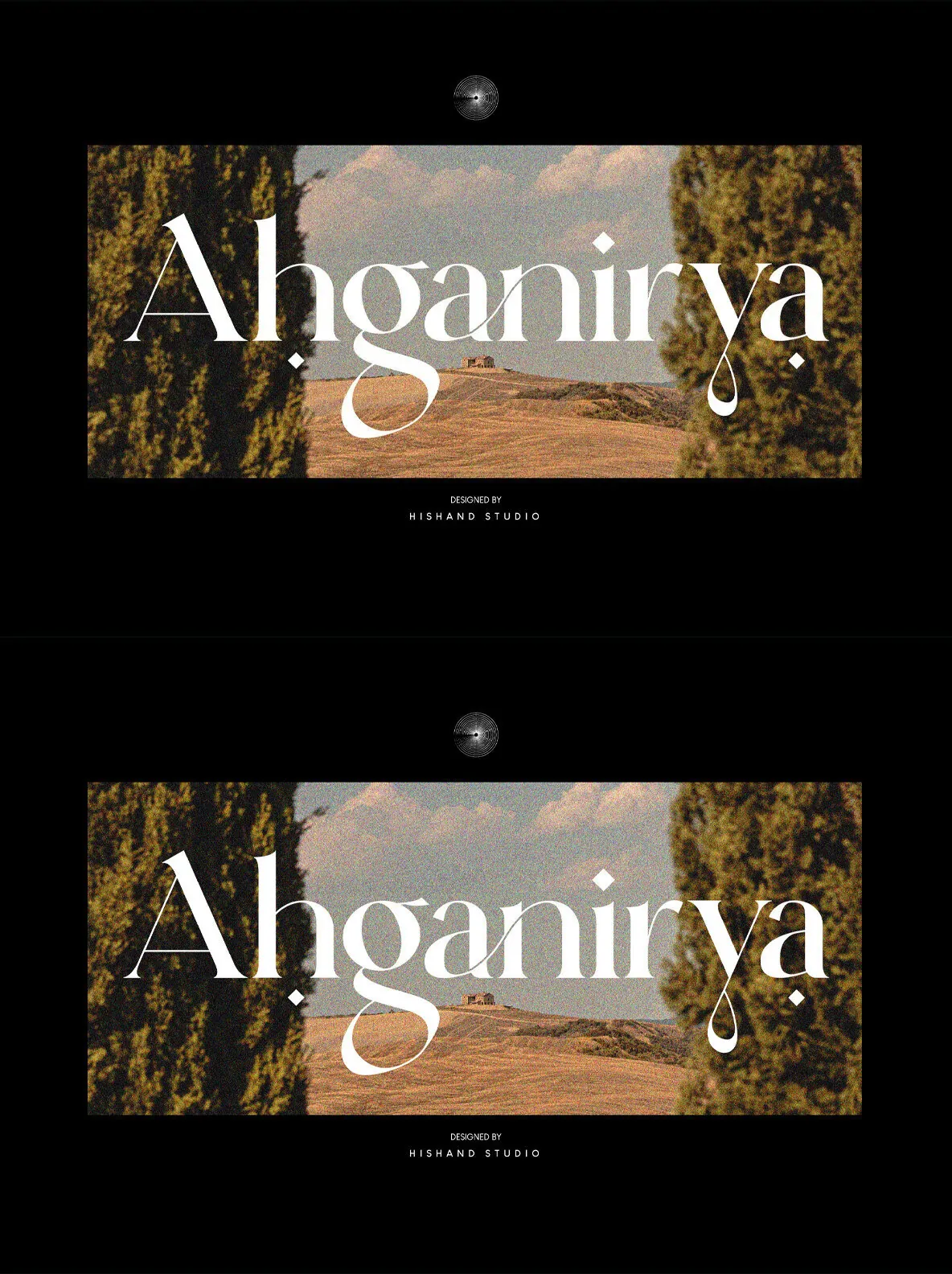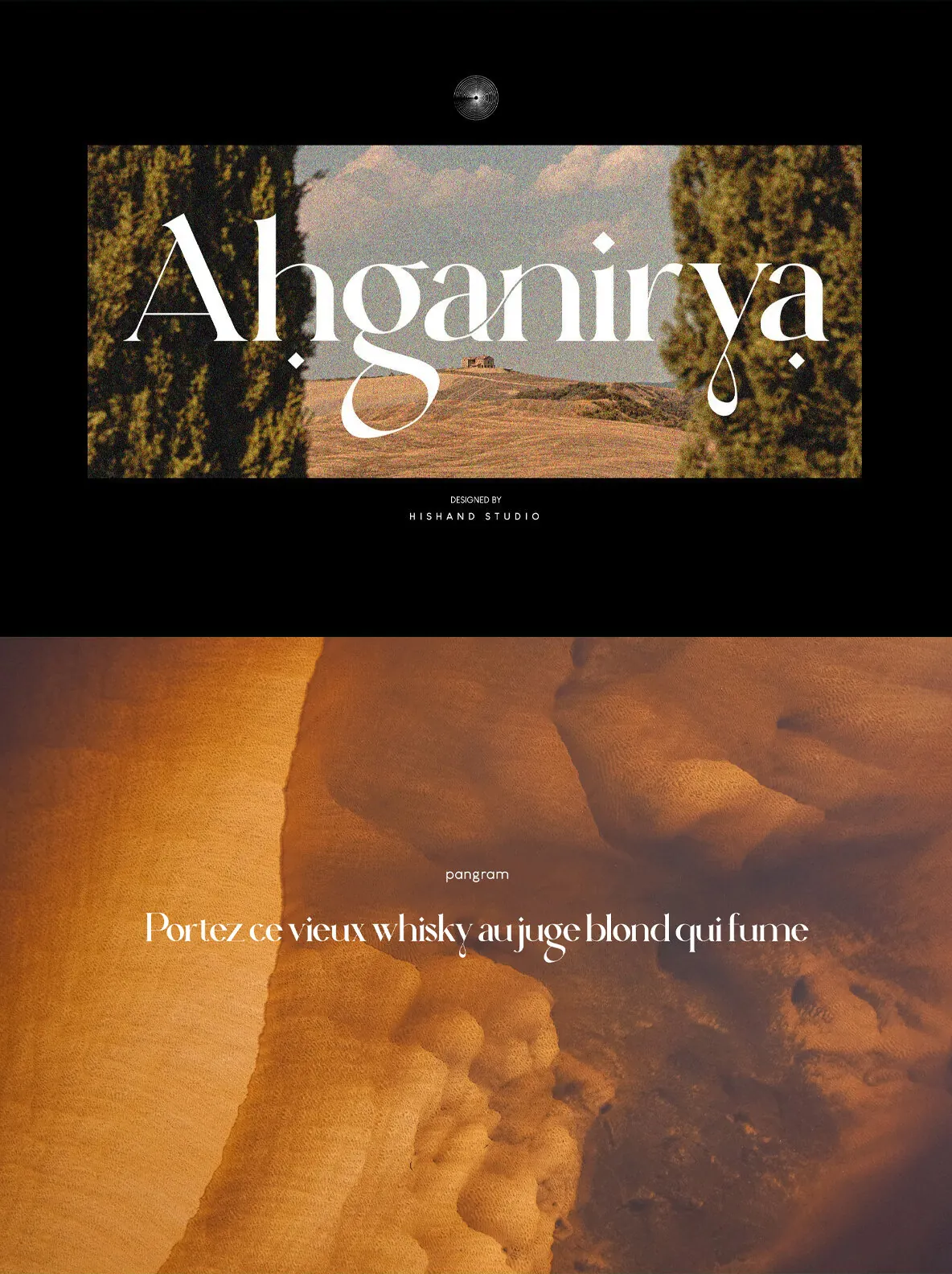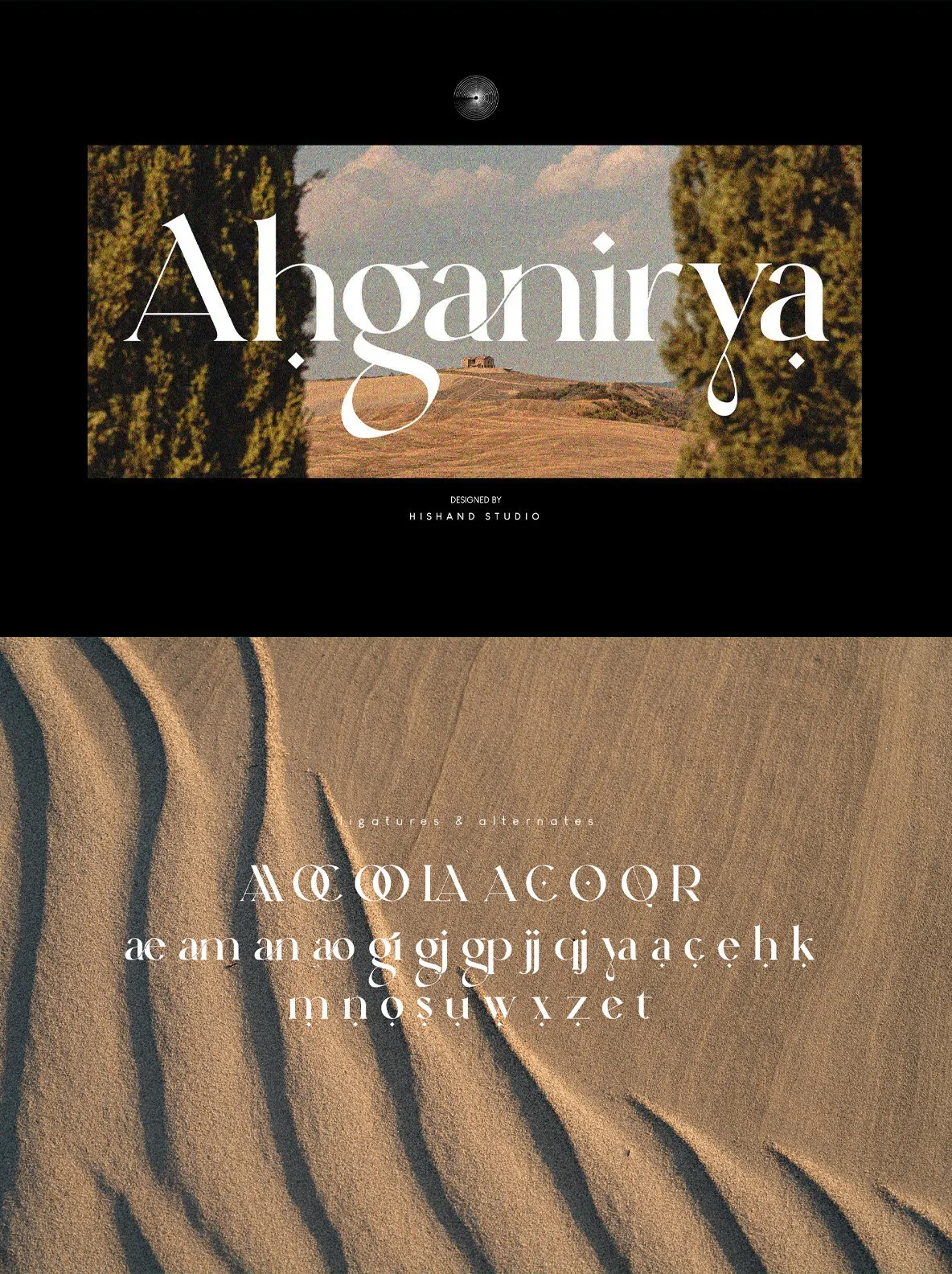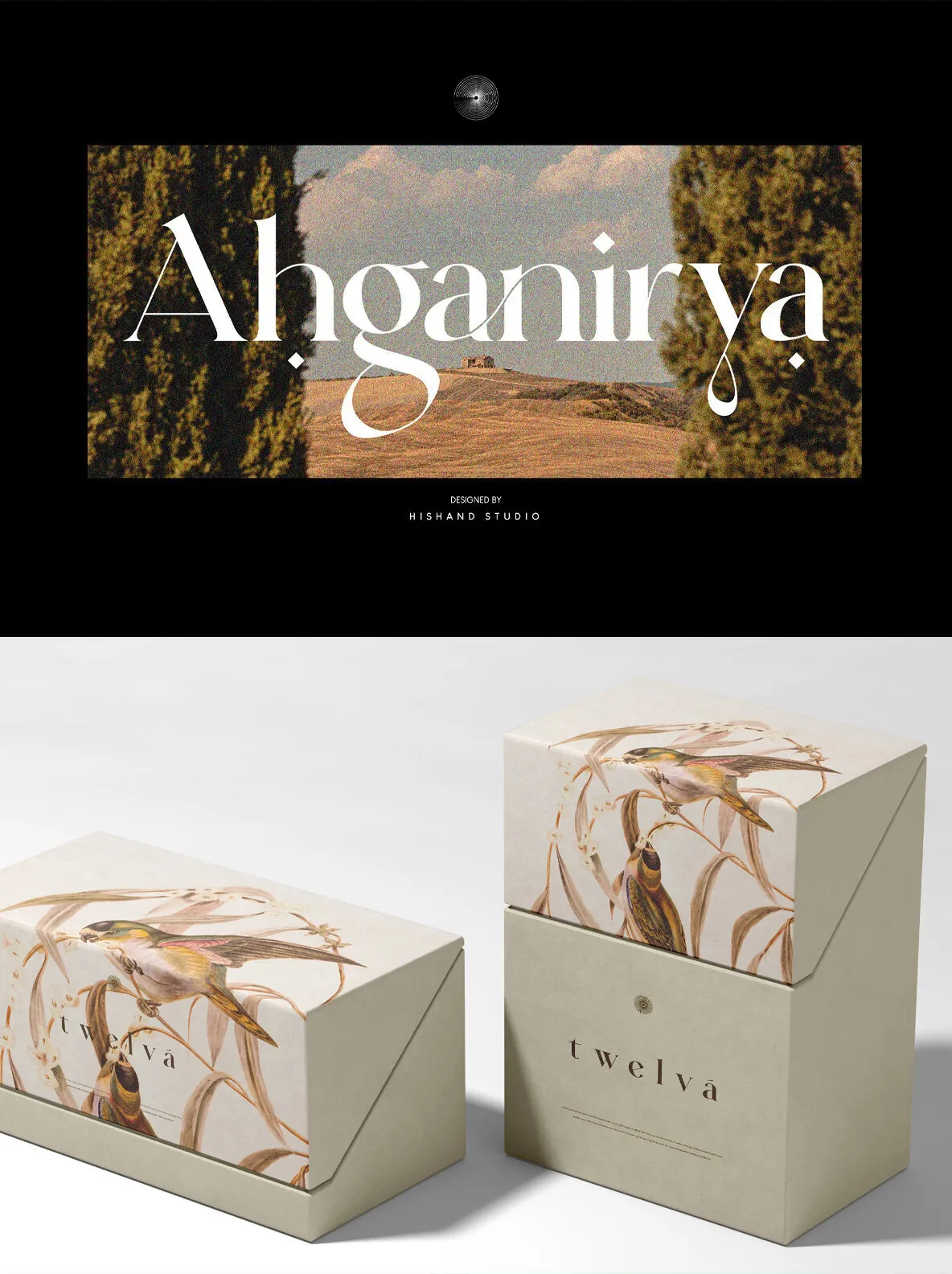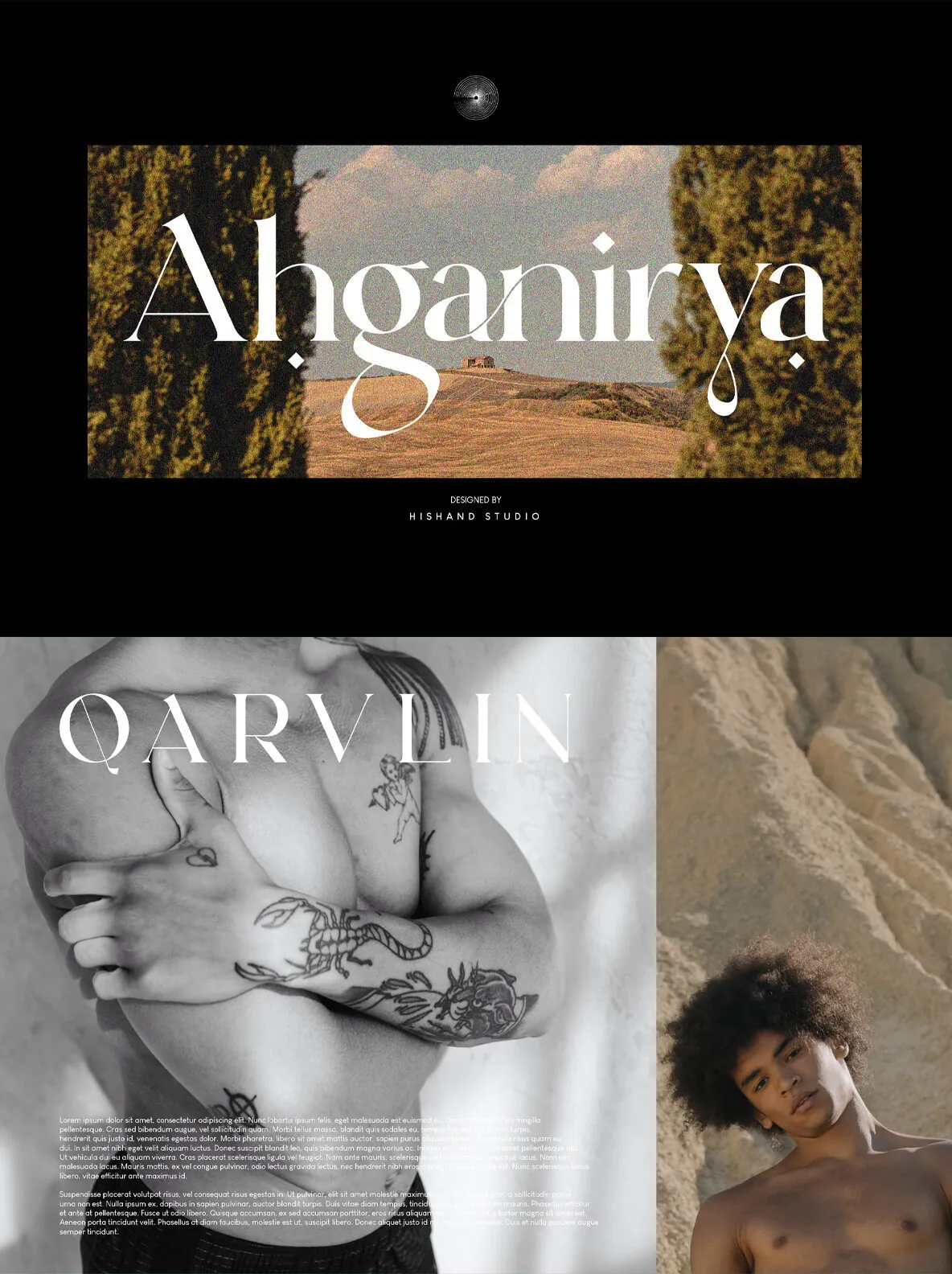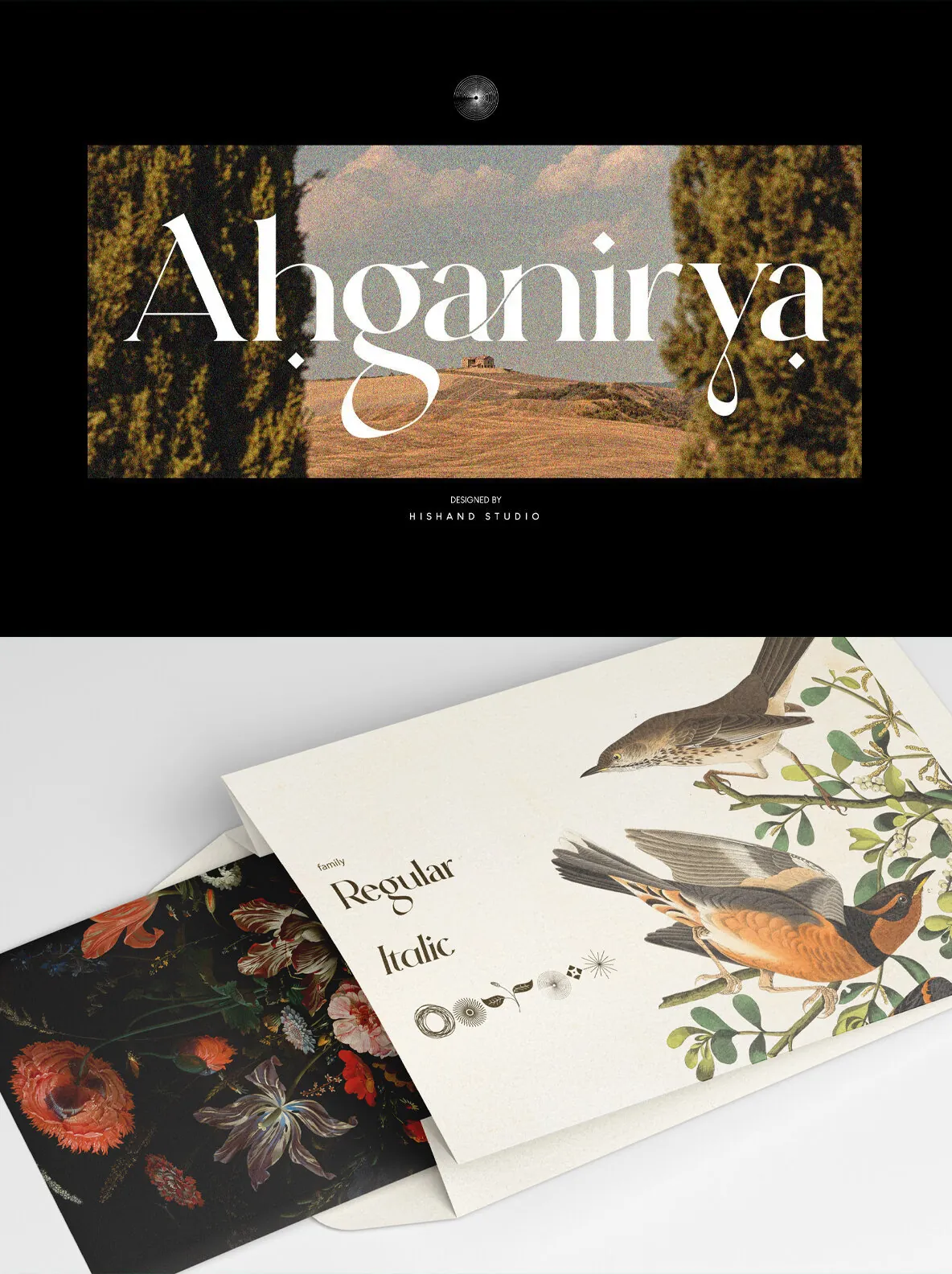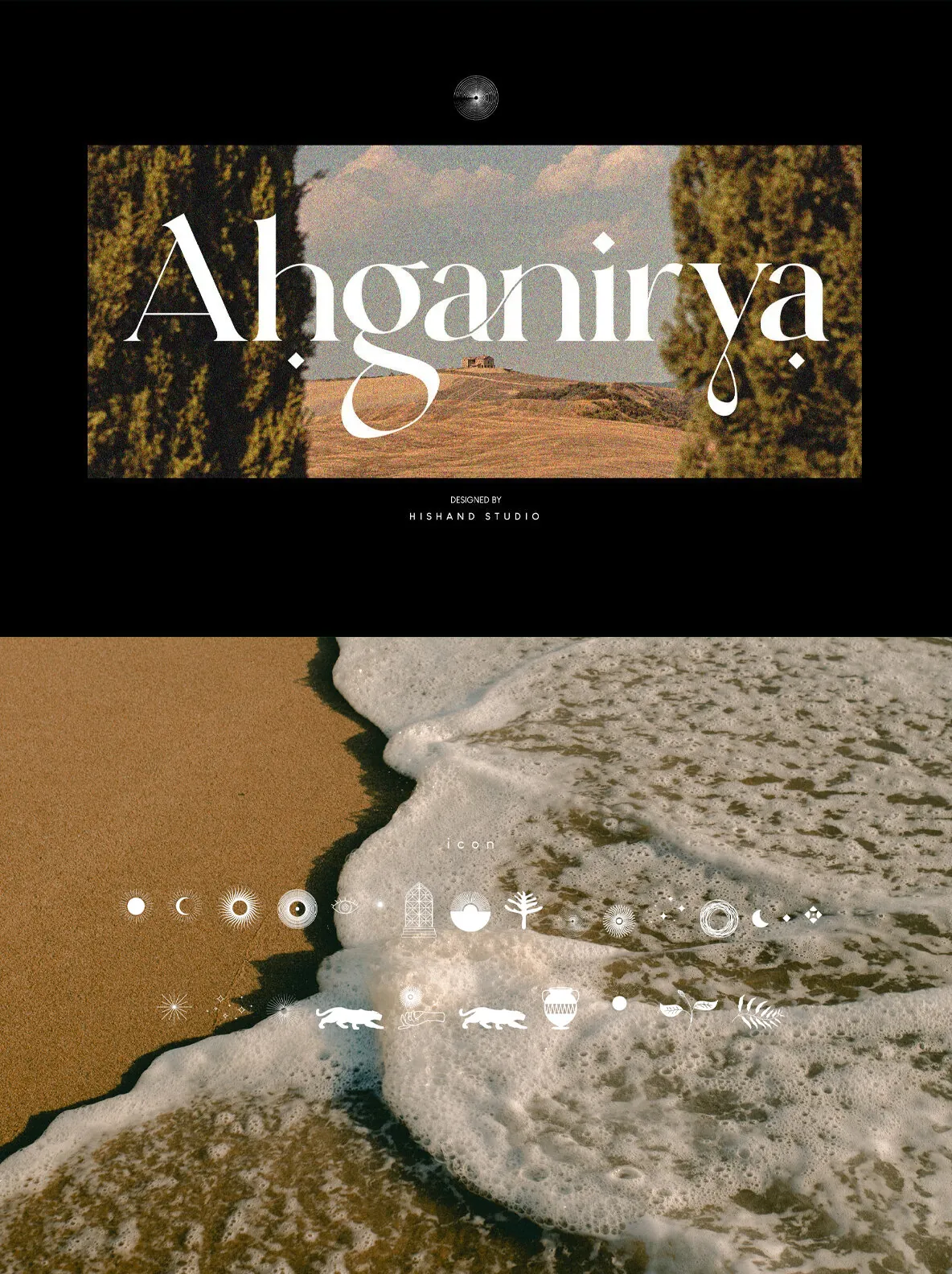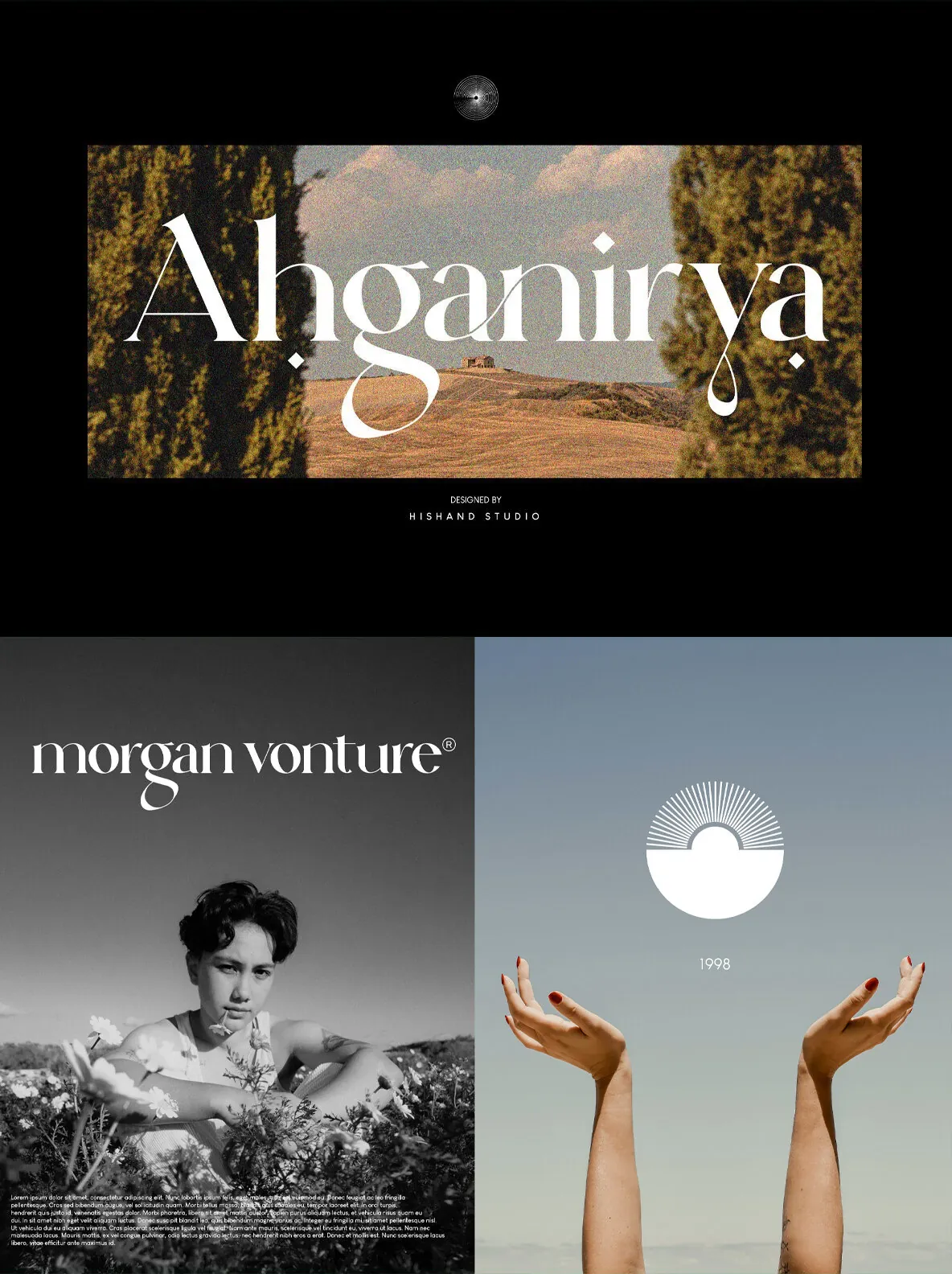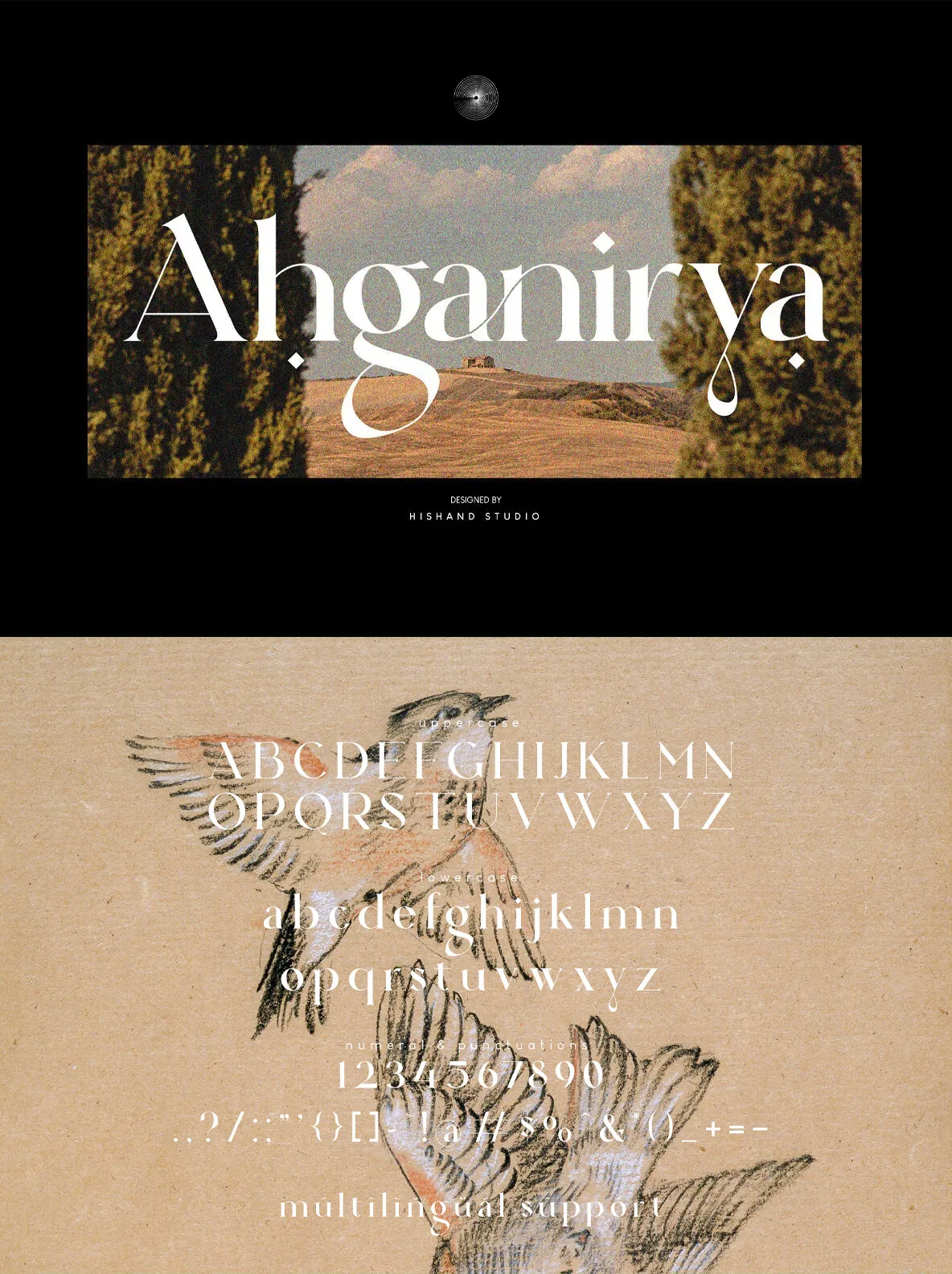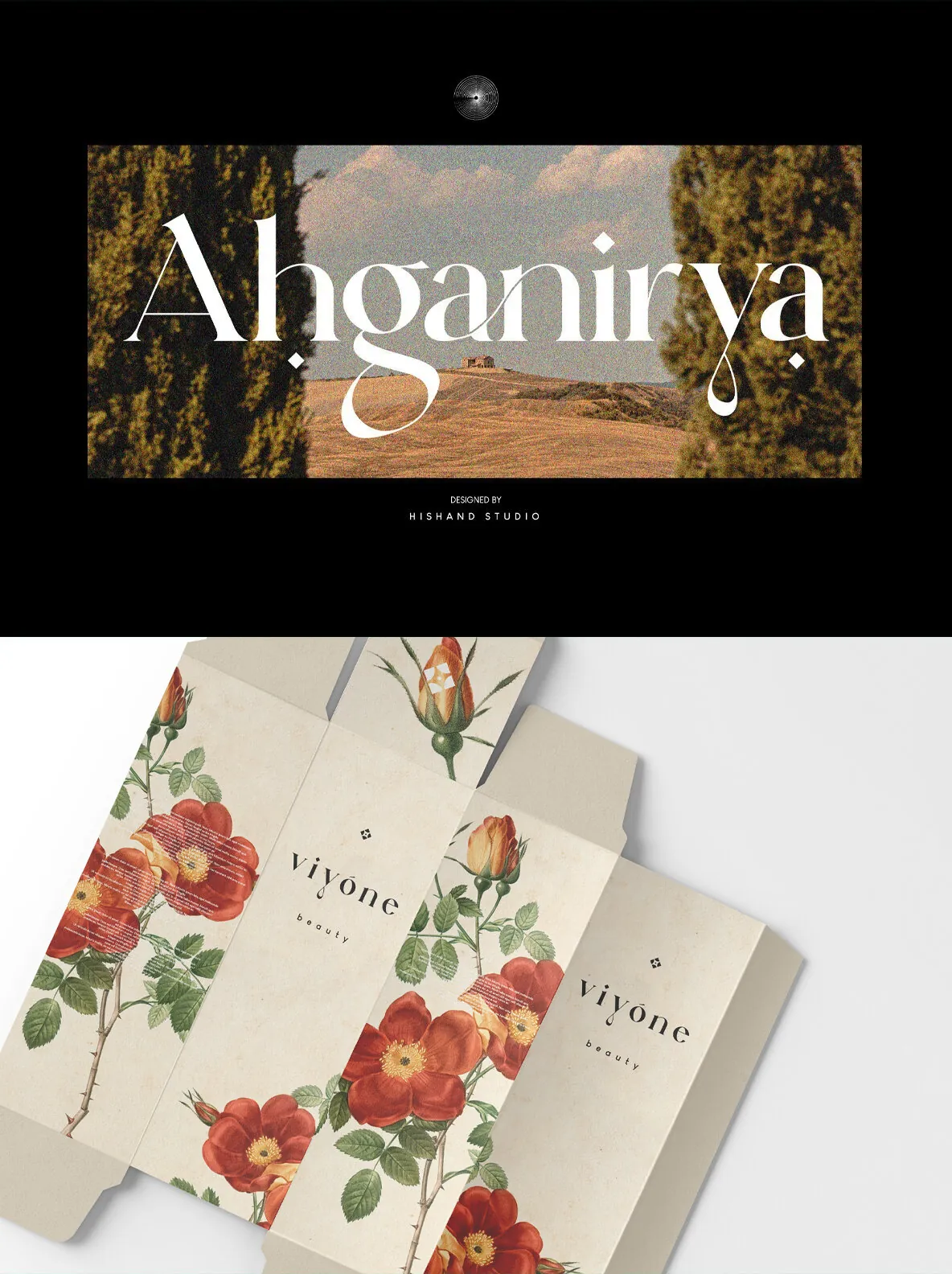
Ahganirya Font
Ahganirya — Minimal Forms, Sharp Presence
Ahganirya is a display font with a modern, minimalist design, made for businesses that need a clean and sophisticated visual tone. Its elegant curves and sharp edges give the typeface a polished character, making it a strong choice for logos, business cards, and other brand-focused design projects.
Designed for both print and digital use, Ahganirya gives designers the flexibility to build a cohesive and professional brand identity. Its legibility, distinctive structure, and refined display style help visual work feel clear, confident, and memorable across a wide range of applications.